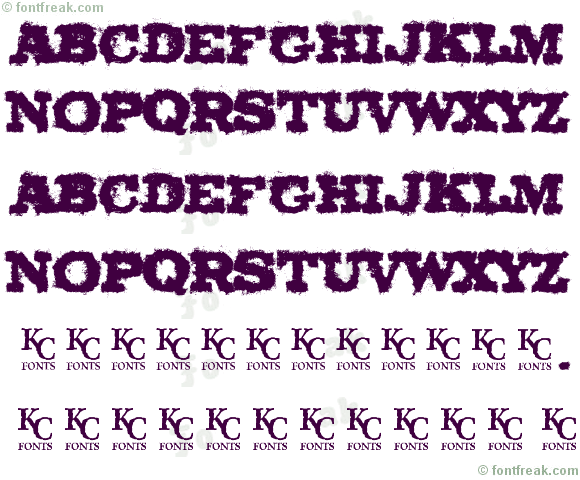
Ol Cowboy ExtraBold DEMO
The Ol Cowboy ExtraBold DEMO font by Kevin Christopher presents a striking example of a display typeface, characterized by its bold and rugged appearance. This font features a heavy stroke weight with a rough, textured finish that evokes a sense of the Wild West. Its unique design includes a subtle contrast in thickness, giving it an eye-catching, dynamic quality. The letter spacing is generous, allowing for easy readability while maintaining a playful aesthetic that draws attention.
Ideal for a variety of creative projects, the Ol Cowboy ExtraBold DEMO font shines in contexts such as branding for rustic-themed restaurants, cowboy-themed events, or Western-style merchandise. It is also a fantastic choice for movie posters, particularly those in the action or adventure genres, where a bold and adventurous feel is essential. Additionally, this font can add a distinctive flair to promotional materials for rodeos or country music festivals, effectively capturing the spirit of the themes involved.
What sets the Ol Cowboy ExtraBold DEMO font apart is its strong character and versatility. It captures the essence of Americana while remaining adaptable for various design needs. This font not only commands attention but also evokes a sense of nostalgia and adventure, making it a must-have in any designer's toolkit. Embrace the spirit of the frontier with this extraordinary typeface, and let your projects tell a story.